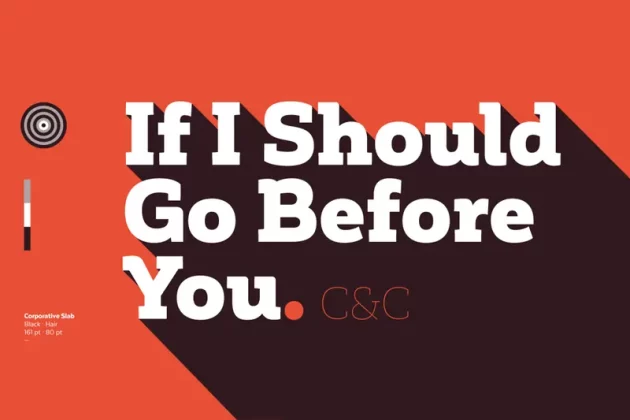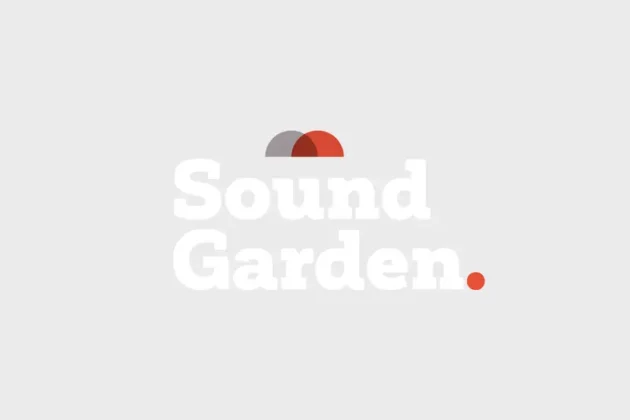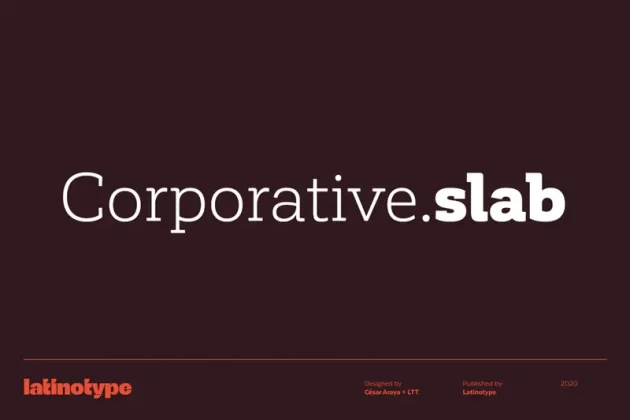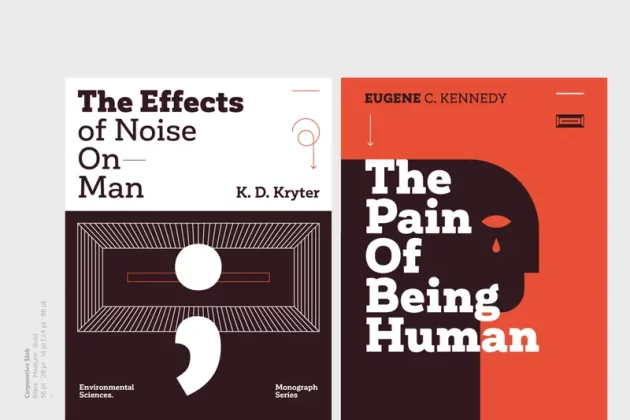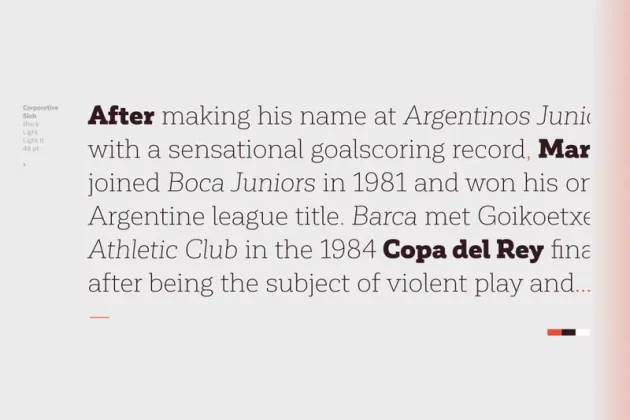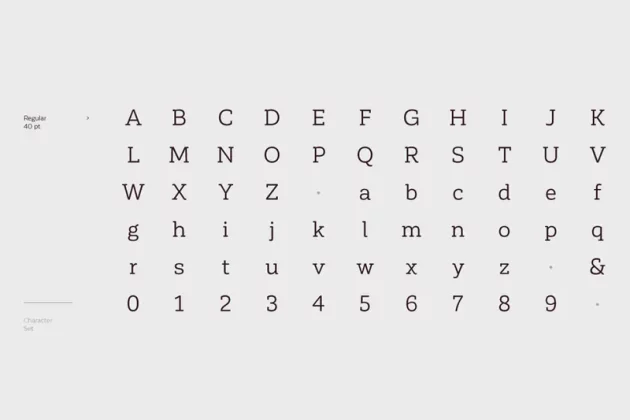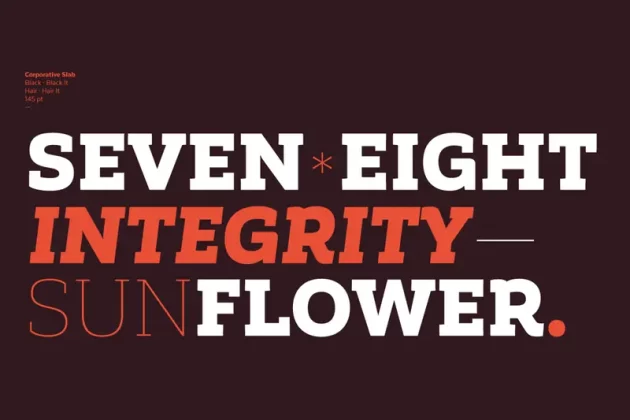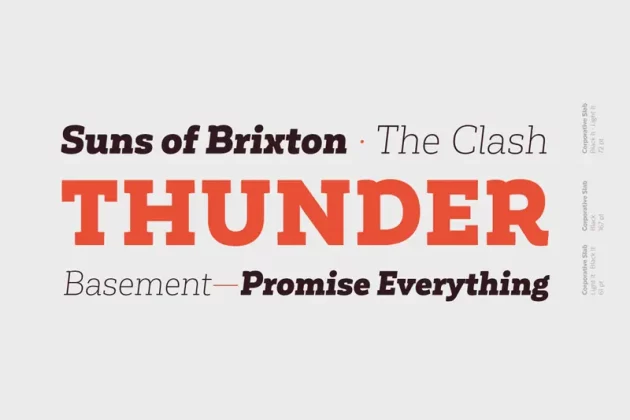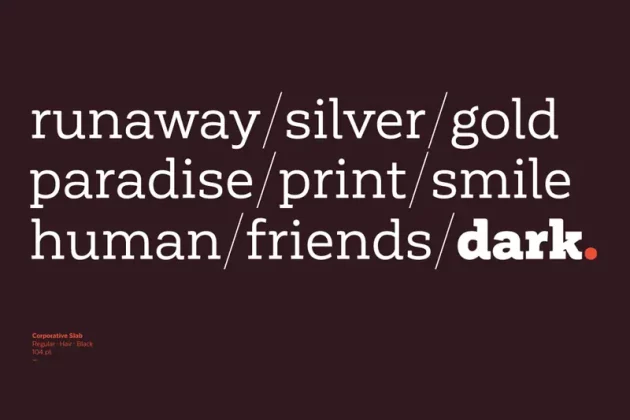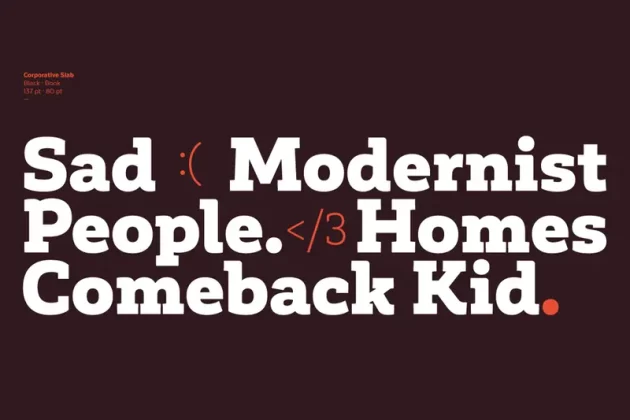
Corporative Slab Font
This family is the slab serif version of Corporative https://latinotype.com/display-weights?font=56. The thick terminals give it a strong personality and distinctive traits. Original main strokes and rounded edges have been kept untouched in order to find a balance between both versions. Corporative Slab is the perfect choice for large-scale display use and it is also suitable for use at small sizes. This font works well for logos, posters, signage, packaging, branding, etc.
As you would expect from Latinotype, this typeface comes with a standard set of 350 characters that support over 200 Latin-based languages. Corporative Slab provides users with a wide range of glyphs and weights for every project—from branding and advertising to editorial designs. The family comes in 8 weights plus matching italics.